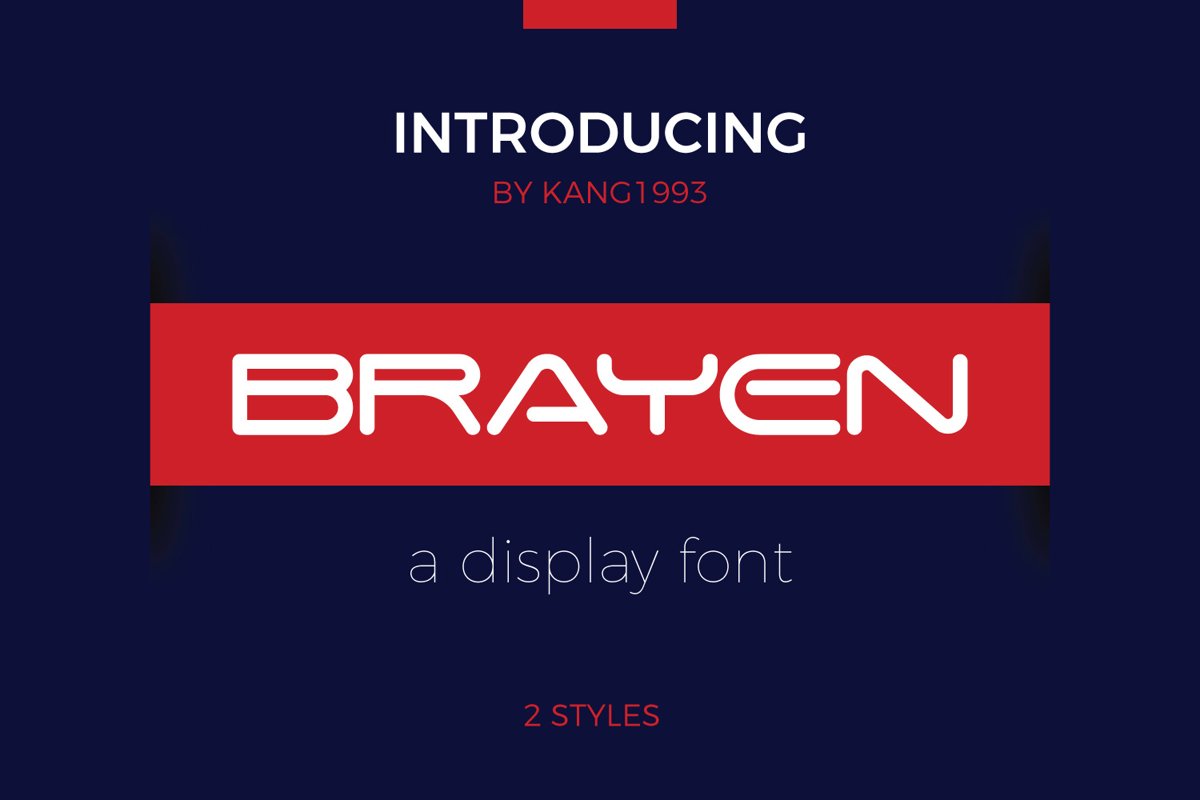
Brayen is an energetic, clean and gorgeous sans serif font
that will easily become a modern and classic typeface within your designs. Its
style is suitable for labeling, logos, clothing, movie titles, flyers, album
covers, posters, texts about technology, headlines, and others.
Brayen has 2 font styles:
• Outline
• Regular.
Brayen
Font Features:
• Uppercase Letters
• Lowercase Letters
• Punctuation